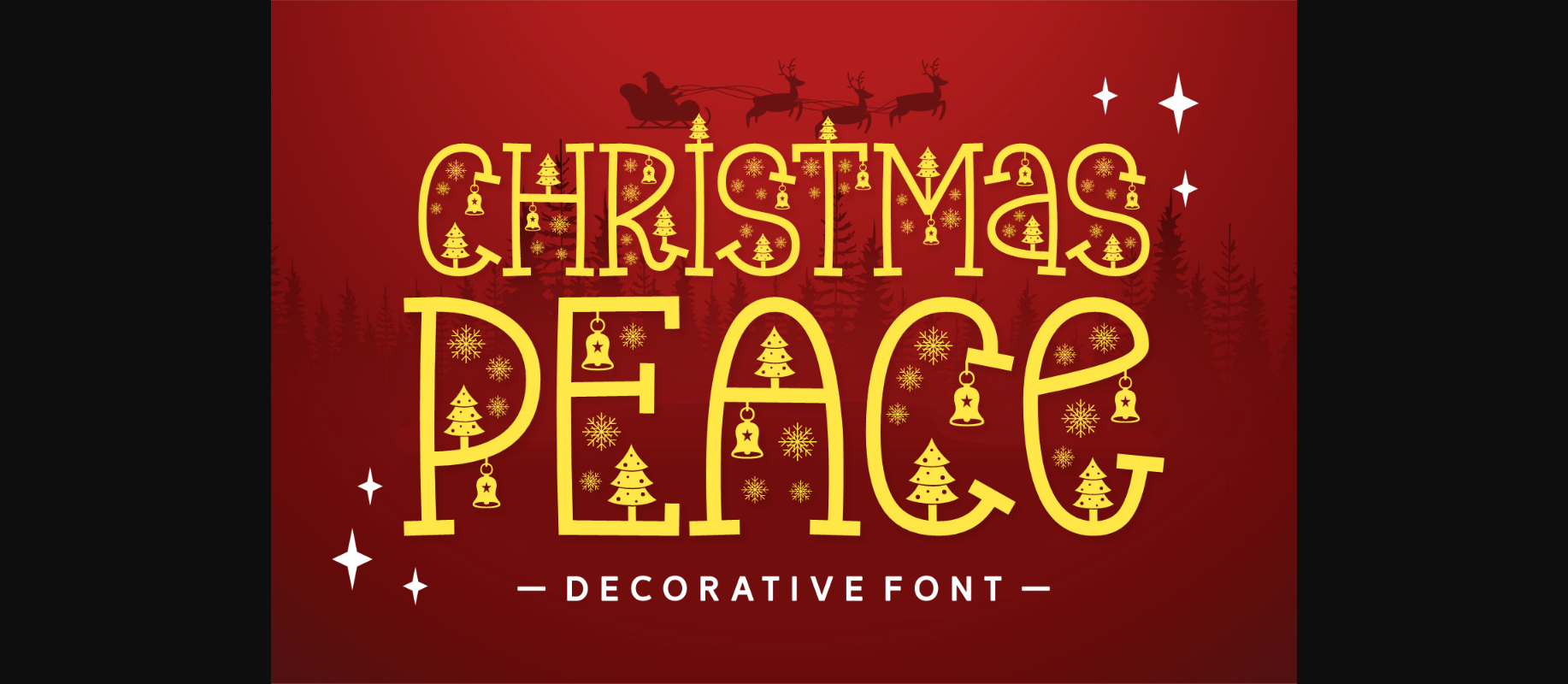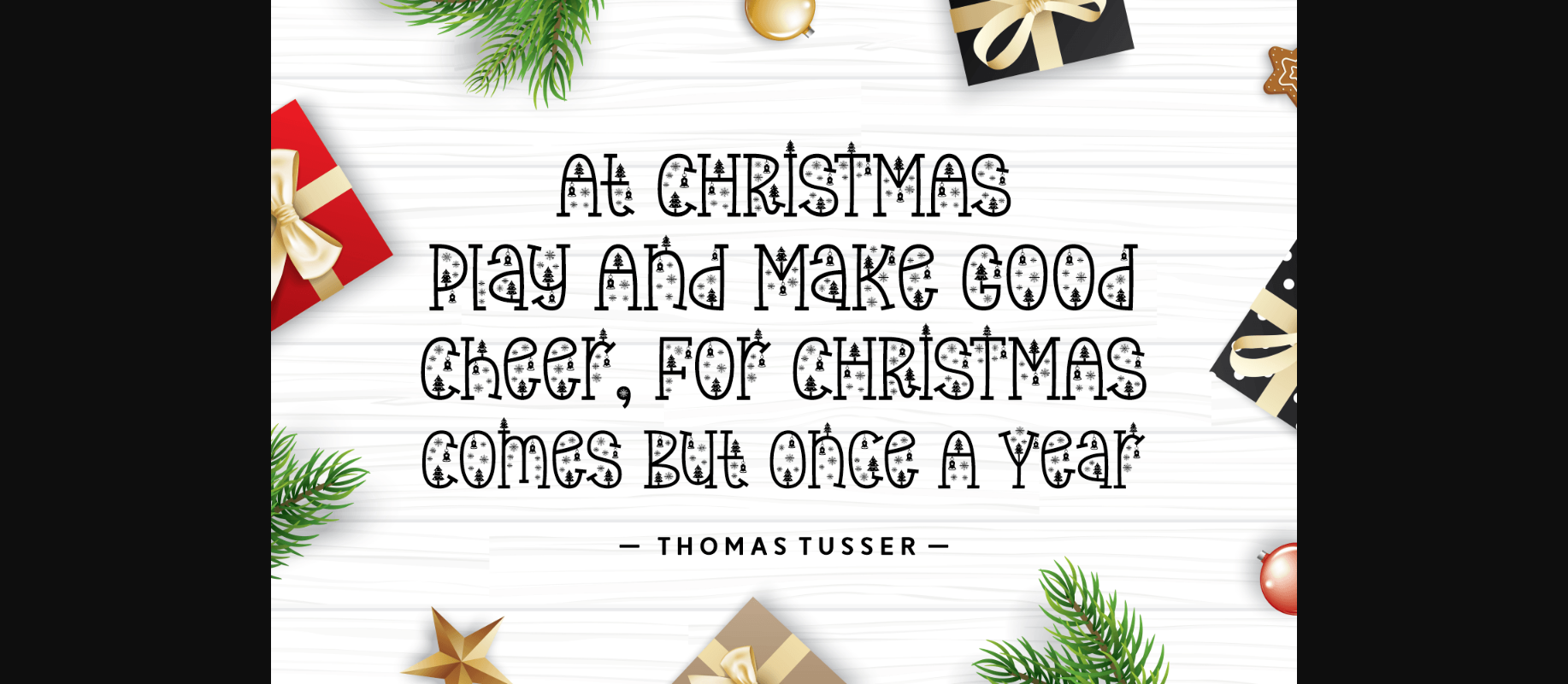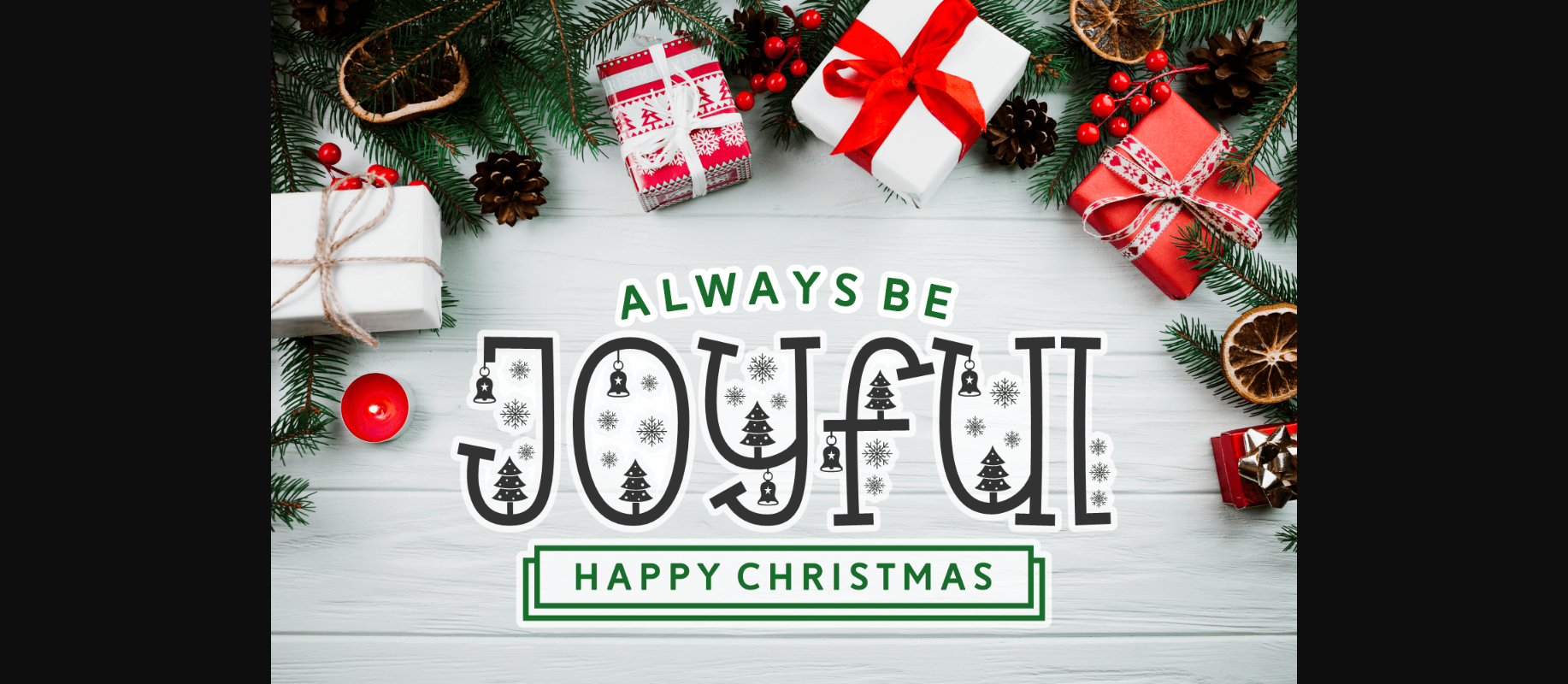
About Christmas Peace Font
Bring a cozy and warm accent to your designs with this lovely decorative font. Its whimsical and festive nature will definitely make your projects stand out.